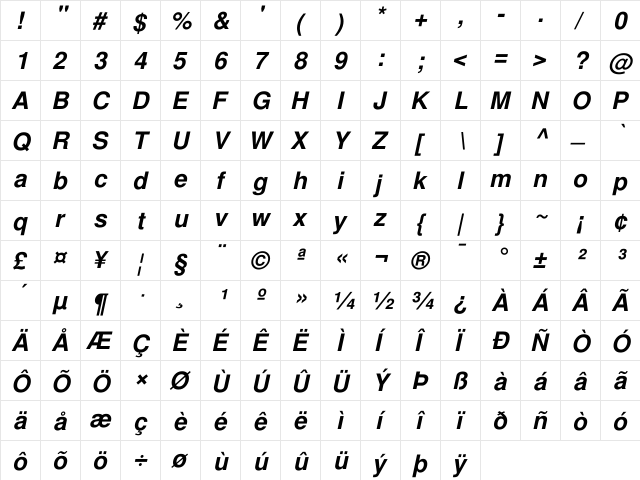
FreeSans BoldOblique
Design Context for FreeSans Typeface
FreeSans is a composed and adaptable typeface that performs quietly and consistently across a wide range of design contexts. Its italic angle brings a sense of urgency and motion to the letterforms. Its bold stroke weight gives it real presence on the page.
Pro Tip: Use FreeSans for emphasis, pull quotes, and subheadings where its slanted energy can add rhythm to the layout.